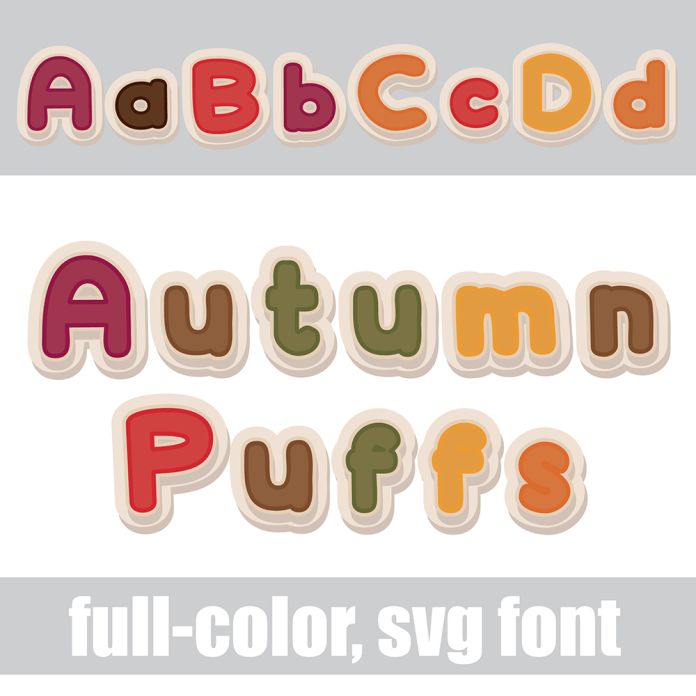
This full-color font features puffy, layered sans serif lettering in an autumn color palette. There is an alt version you can access through your system's character map that contains additional colors of all the letters. This font works best for titles, displays, posters and more. Please note color fonts will show as black in non compatible programs. This font type is compatible with Silhouette Studio..